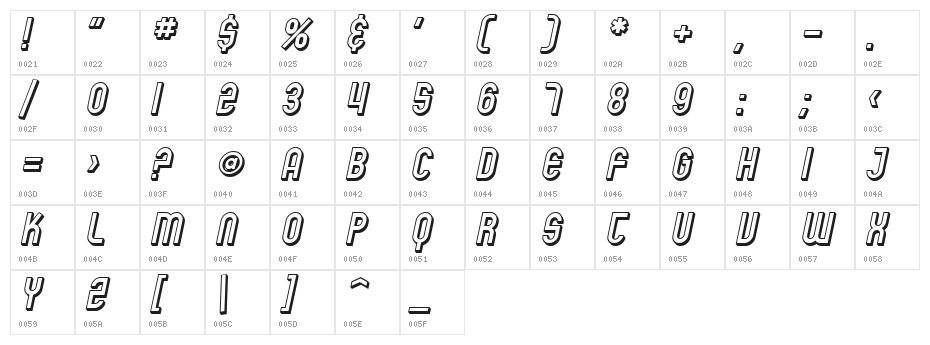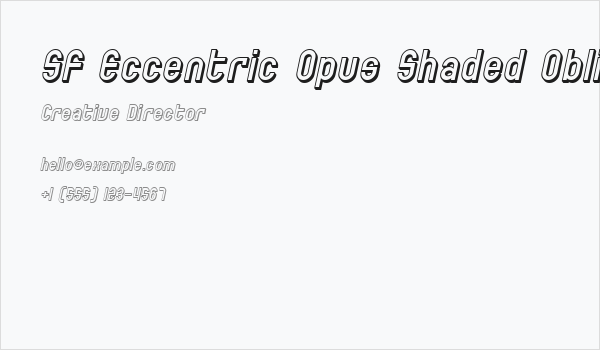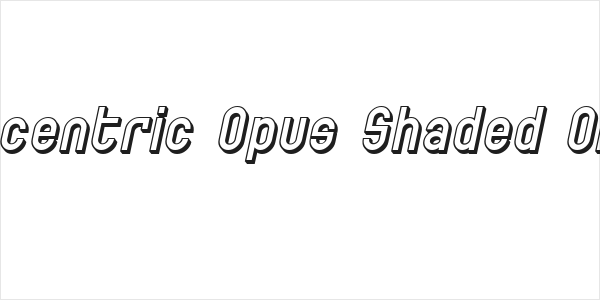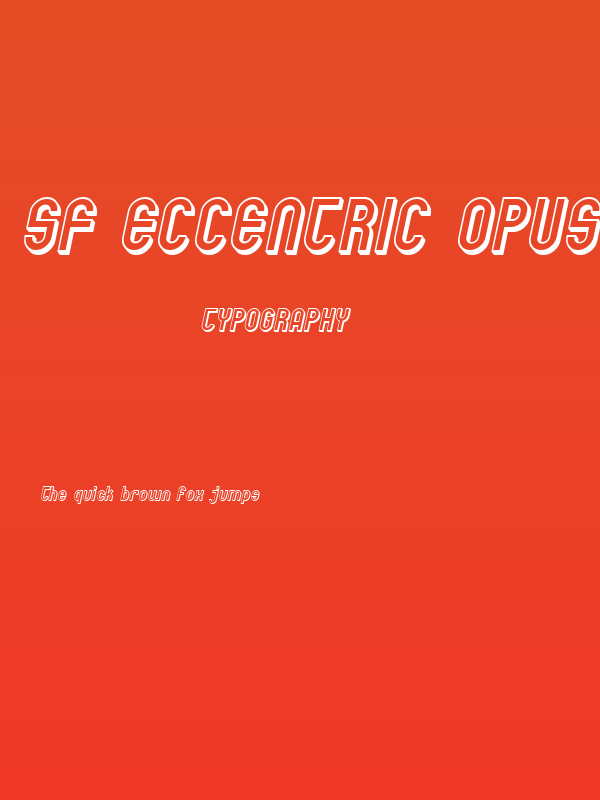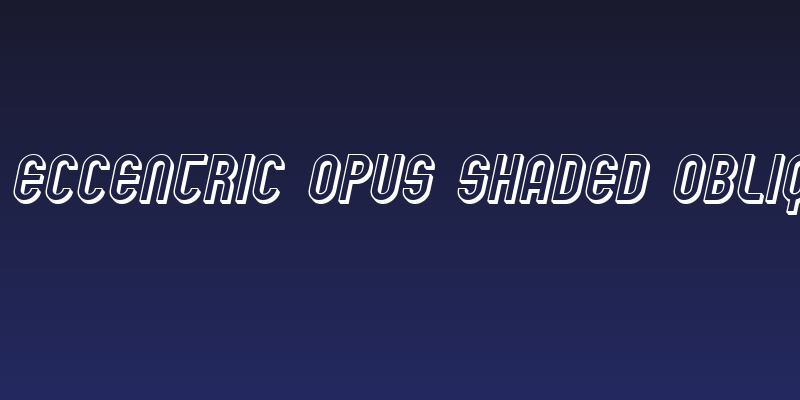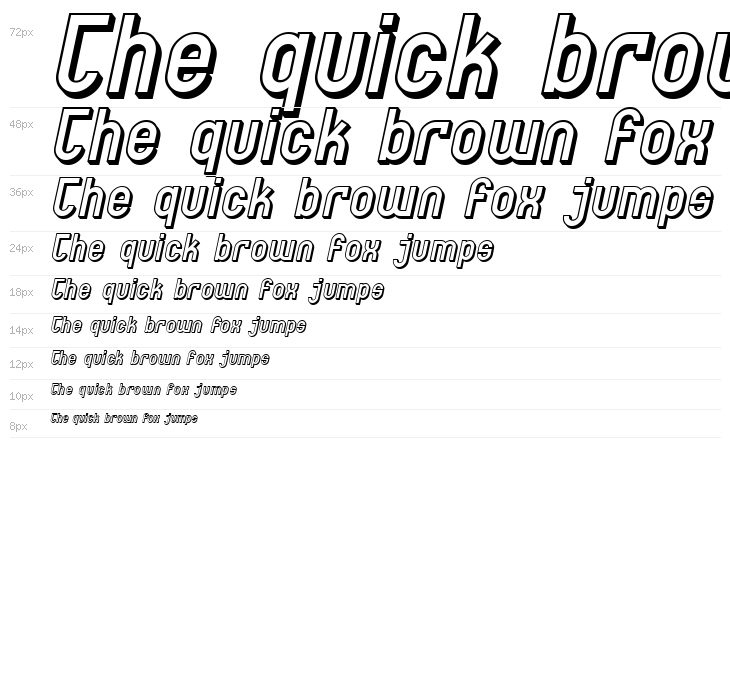
SF Eccentric Opus Shaded Oblique Font
SF Eccentric Opus Shaded Oblique Description
This font features a bold, dynamic style with a distinct oblique orientation, giving it a sense of movement and energy. The characters are outlined, creating a shaded effect that adds depth and dimension. The uppercase and lowercase letters maintain a consistent design, with rounded edges and a slightly condensed form. The numerals and special characters follow the same aesthetic, ensuring uniformity across all glyphs. This font's playful yet structured appearance makes it suitable for eye-catching designs.
| Proposed Projects | Ideal for posters, headlines, branding, and any design requiring a bold, eye-catching typeface. |